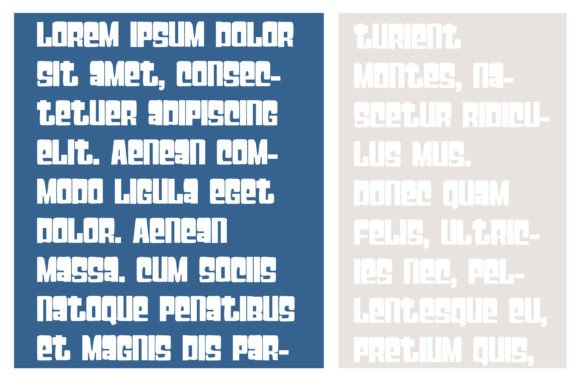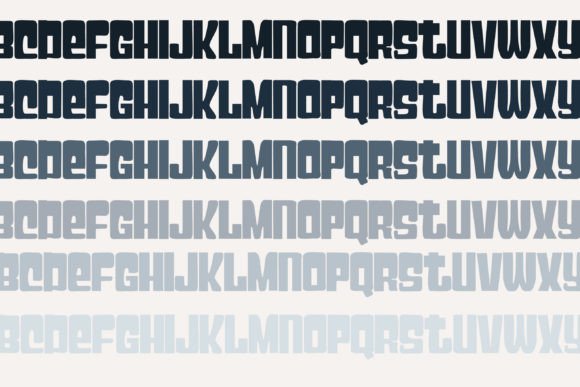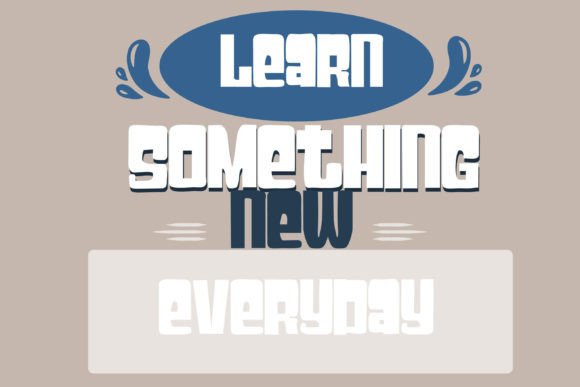
Jeopardize Font
About the Jeopardize Font
Add a touch of class to your work with the Jeopardize Font, a truly exceptional typeface. “Jeopardize” is a bold, thick font without any parts that hang below the baseline. It’s easy to read and stands out clearly.
Jeopardize excels in headlines, short titles, and branding applications where strong visual impact is key. Its bold nature makes it ideal for posters, signage, and packaging designs needing immediate attention. However, its weight and lack of fine detail make it less suitable for body text or long paragraphs, and it would be a poor choice for user interfaces requiring high readability at smaller sizes.
The font’s personality is assertive and confident, lending itself well to brands projecting power or innovation. Consider pairing Jeopardize with a clean sans-serif like Open Sans for a balanced contrast, or a more playful script font such as Pacifico to add a touch of informality, depending on the desired overall message.
For a more sophisticated pairing, a classic serif like Garamond could provide a refined counterpoint to Jeopardize’s boldness, grounding the design and adding a layer of subtle elegance.